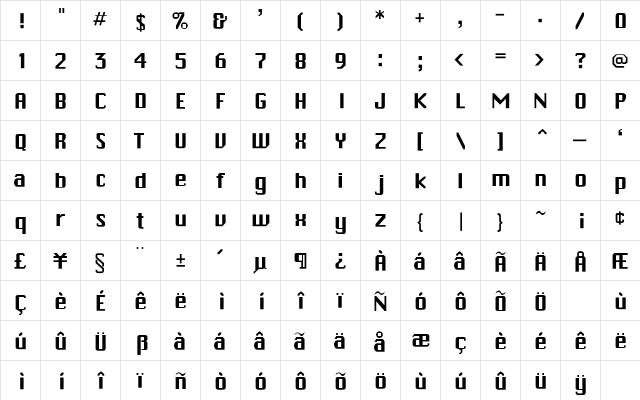
ChiTown-Light Regular Free Font
ChiTown-Light Regular
Design Context for ChiTown-Light
ChiTown-Light is a composed and adaptable typeface that performs quietly and consistently across a wide range of design contexts. Its slender proportions lend an understated elegance to any composition.